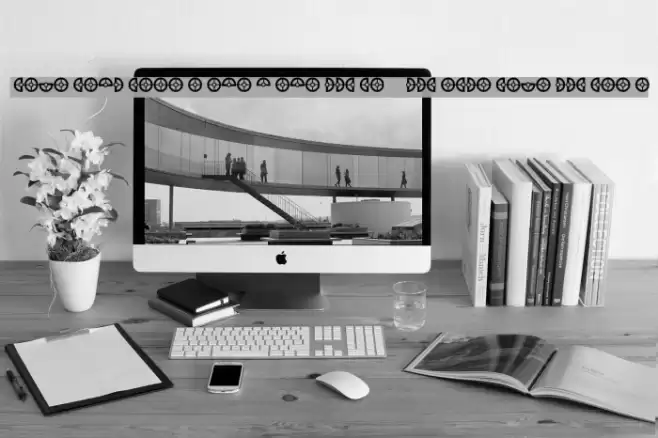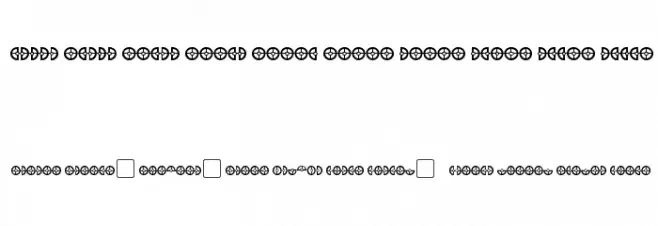
Cybertron OpCode Font
Cybertron OpCode Description
This font features a highly decorative and abstract design, resembling a futuristic or alien script. Each character is composed of intricate geometric shapes, including circles, lines, and angles, creating a sense of mystery and otherworldliness. The characters are uniform in height and width, contributing to a monospaced appearance. The design is consistent across uppercase, lowercase, numbers, and special characters, maintaining the same complex aesthetic throughout. This font is not intended for readability but rather for artistic or thematic purposes, making it suitable for projects that require a unique and unconventional typeface.
A decorative, futuristic font with abstract geometric shapes from Uncategorized fonts.
- Proposed Projects: Ideal for sci-fi themed designs, video game interfaces, movie posters, or any project requiring a unique, alien-like typeface.
- Overall Style: Futuristic, Abstract
- Use Case: Logos, Posters, Thematic Designs